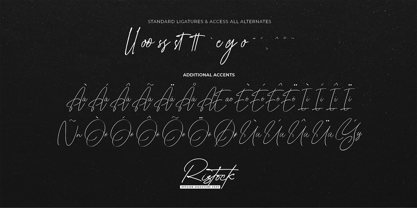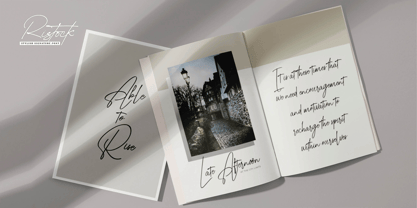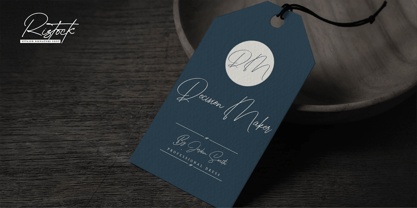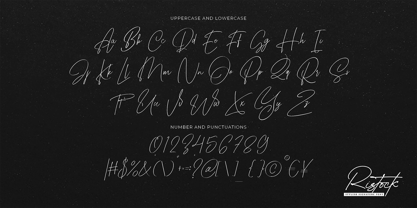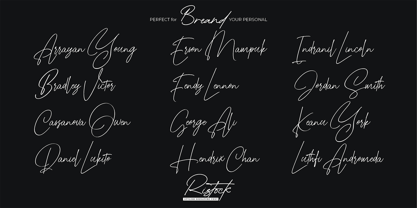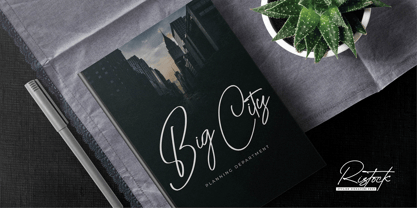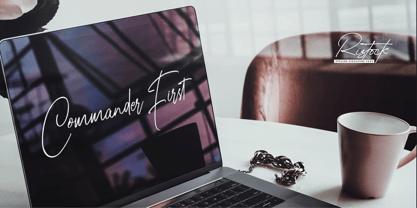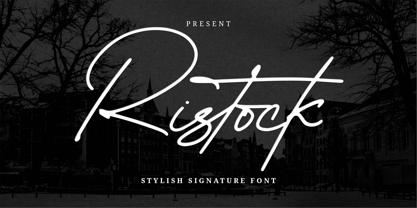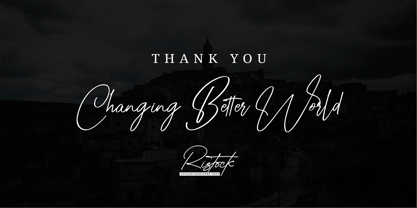
Ristock
von Almarkha Type
Die Schriftfamilie Ristock wurde von Abdul Malik Wisnu entworfen und von Almarkha Type veröffentlicht. Ristock enthält 1 Stile. Mehr über diese Familie
Ristock is a stylish signature typeface featuring elegant strokes, refined curves, and a beautifully natural handwritten flow. Designed to embody sophistication and modern luxury, this font adds an authentic personal touch that feels both graceful and effortlessly classy. Its smooth lines, delicate rhythm, and expressive letterforms create a timeless signature look—ideal for designs that require elegance, intimacy, and high-end visual appeal. Ristock captures the essence of handcrafted beauty while maintaining the polished refinement essential for premium branding.
Designer: Abdul Malik Wisnu
Aktuelle Foundry: Almarkha Type